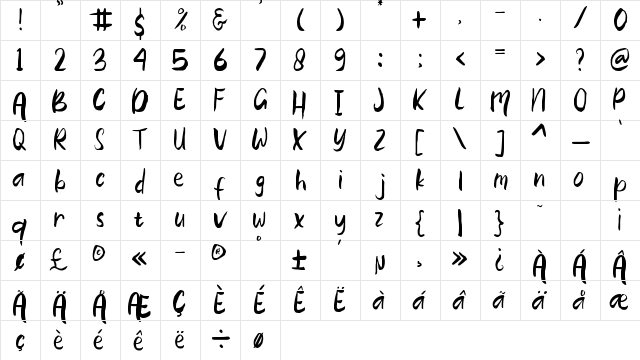
The Zackly Regular
| Designer | Nuun Creatype |
Design Context for The Zackly Typeface
The Zackly is a composed and adaptable typeface that performs quietly and consistently across a wide range of design contexts.